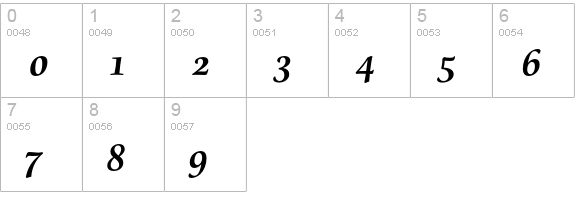
Cataneo Bold OSF Font Details
Cataneo Bold OSF is a strong, high-contrast variant in the Cataneo typeface family \xE2\x80\x94 well suited to headlines, attention-grabbing titles, and strong calls-to-action.
Cataneo Bold OSF is a striking and versatile font that exudes confidence and elegance. With its bold and distinctive design, this typeface commands attention and makes a bold statement in any project. The tall x-height and strong vertical strokes give Cataneo Bold OSF a commanding presence, perfect for headlines, titles, and branding materials. What sets Cataneo Bold OSF apart is that it is not only visually impactful but also highly readable, making it an excellent choice for both print and digital designs. The OpenType features include old-style figures, making this font ideal for projects that require a touch of classic sophistication. Best of all, Cataneo Bold OSF is free to download at FontsMarket.com, making it easily accessible to designers looking to add a touch of boldness and style to their work. Whether you're working on a poster, logo, website, or any other design project, Cataneo Bold OSF is sure to make a lasting impression.